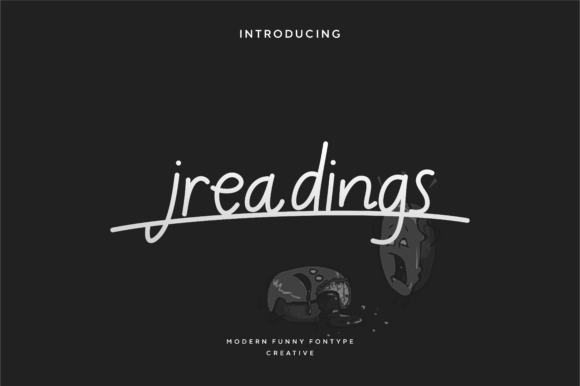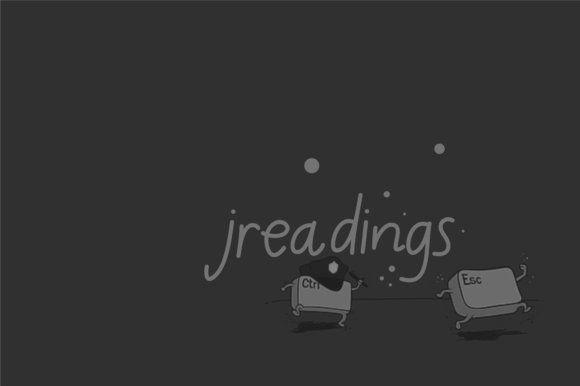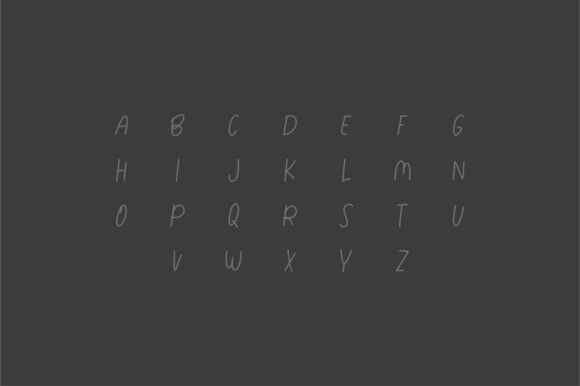
Jreadings Font
About Jreadings Font
Jreadings is an exceptional and distinctive handwritten font, characterized by its beautiful flow and smooth curves. Its unique style makes it a perfect choice for fashion branding, editorial designs, and any project that requires a touch of elegance and sophistication.
For fashion branding, Jreadings adds a sense of luxury and refinement to the brand identity. Its lovely flow and smooth curves create an aura of sophistication and elegance, making it the ideal font for fashion logos, clothing tags, and promotional materials. It sets the brand apart and leaves a lasting impression on the target audience.
In editorial designs, Jreadings brings a touch of beauty and charm to the layout. Its unique and fluid appearance makes it perfect for headlines, subheadings, and other design elements that require a handwritten touch. It complements the overall design, adding visual interest and making the content more engaging and appealing to readers.
In creative projects, Jreadings’ lovely flow and smooth curves add a sense of artistic flair. It can be used for posters, flyers, and other promotional materials, infusing the designs with a touch of elegance and creativity.
For social media graphics, Jreadings stands out and captures attention. Its unique style and beautiful flow make it perfect for quote posts, announcements, and other visual content that requires a personalized and eye-catching look.
In any project where elegance and sophistication are desired, Jreadings excels. Its distinctive handwritten style adds a sense of authenticity and originality, making the designs more memorable and impactful.
In conclusion, Jreadings is a remarkable and distinctive handwritten font with a lovely flow and smooth curves. Its unique style makes it perfect for fashion branding, editorial designs, and various creative projects. Embrace the elegance and charm of Jreadings confidently in your designs, and you will undoubtedly love the remarkable results it brings.